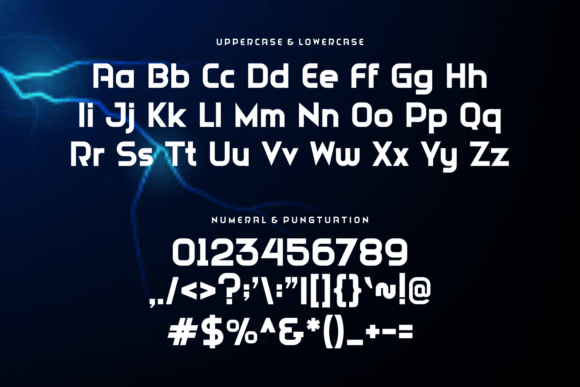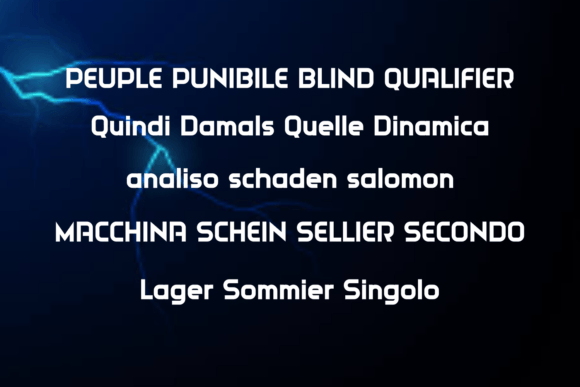
Introduction to Narsim Font
As a designer, you’ve likely found yourself stuck in front of a blank canvas, staring at a sea of possibilities, unsure of where to begin. But what if the perfect spark was just a font away? The Narsim Font is a game-changer, a high-quality design resource that’s sure to elevate your next creative project. Its bold, display style makes it perfect for branding, name cards, posters, and logos, or even large-scale artwork and magazine covers.
What sets the Narsim Font apart is its versatility and ease of use. With a transparent background, it’s easy to layer and combine with other design elements, making it a valuable asset for designers of all levels. And the best part? It’s available for free download, making it accessible to creatives everywhere. Whether you’re working on a personal project or a client brief, the Narsim Font is sure to be a valuable addition to your design toolkit.
Key Features of Narsim Font
- Unique, high-quality design resource ideal for creative projects
- Features a transparent background, allowing for seamless integration with various design elements
- Supports a wide range of languages and is suitable for use in various creative projects, including digital art and graphic design
- Includes a range of glyphs and characters, including international characters and symbols
Honest Review: Narsim Font
I recently stumbled upon the Narsim Font and I must say it’s a great addition to my design resource library. The font is a high-quality, sans-serif typeface that’s perfect for creative projects that require a clean and modern look.
One of the things that works well with the Narsim Font is its versatility. It comes in multiple weights, from light to bold, which makes it easy to use in various design contexts. The font also has a transparent background, which is a big plus for designers who need to work with complex designs.
- ✨ Versatile and comes in multiple weights
However, I did notice that the font is not suitable for projects that require a lot of decorative or script elements. Additionally, the font may not be the best choice for very small text sizes due to its relatively simple design.
Overall, I’m impressed with the Narsim Font and I would definitely recommend it to designers who are looking for a high-quality, modern sans-serif typeface. While it may have some limitations, it’s a great addition to any design resource library.
Narsim Font: A High Quality Design Resource for Creative Projects
Common Use Cases for Narsim Font
Narsim Font is perfect for a variety of creative projects, including logos, brochures, business cards, and more. Its high quality design and transparent background make it easy to use in a variety of design applications.